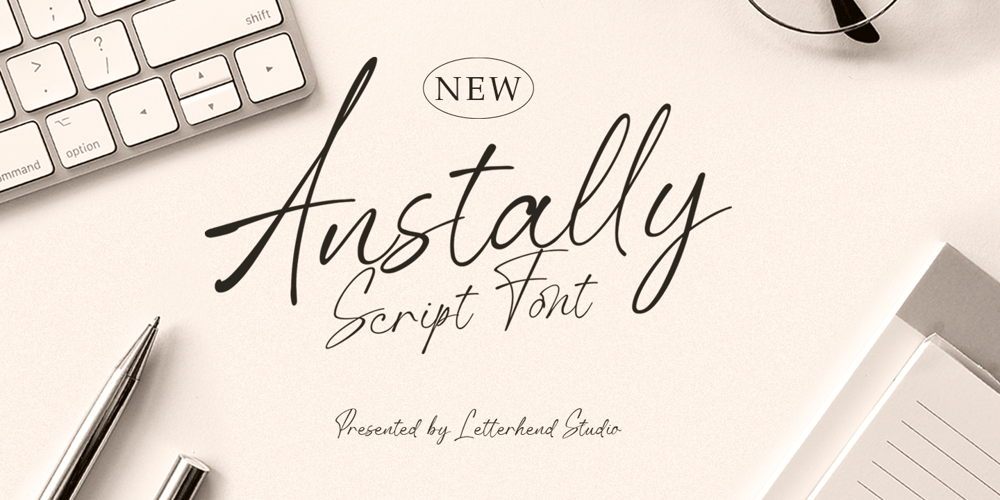
Anstally Font Family was designed by Hendry Juanda and published by Letterhend. Anstally contains 1 styles and family package options. About the ProductAnstally is an script font based on authentic hand writing with natural signature style. This type of font perfectly made to be applied especially in logo, and the other various formal forms such as invitations, labels, logos, magazines, books, greeting / wedding cards, packaging, fashion, make up, stationery, novels, labels or any type of advertising purpose.Features : uppercase & lowercase numbers and punctuation multilingual alternates and ligatures swashes PUA encoded We highly recommend using a program that supports OpenType features and Glyphs panels like many of Adobe apps and Corel Draw, so you can see and access all Glyph variations. How to access opentype feature : letterhend.com/tutorials/using-opentype-feature-in-any-software/